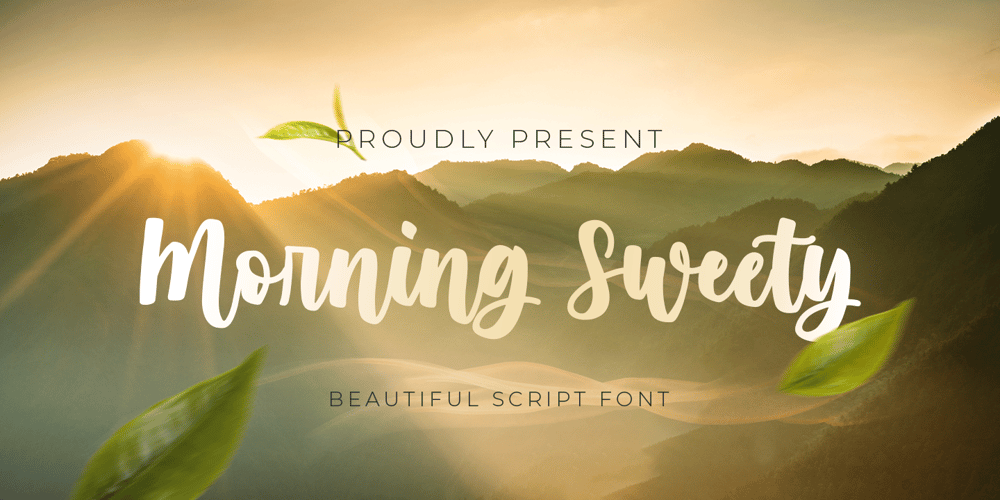
Morning Sweety Font Family was designed by Abdul Malik Wisnu and published by Almarkha Type. Morning Sweety contains 1 styles and family package options. Morning Sweety Beautiful Script font with a natural handwritten feel, perfect for any creative design. This handmade font will make your design has a beautiful natural touch for each details. It is perfect for any design project as Invitation,logo, book cover, craft or any design purposes.This font is PUA encoded which means you can access all of the magical glyphs and swashes with ease! It also features a wealth of special features including alternate glyphs and ligatures.